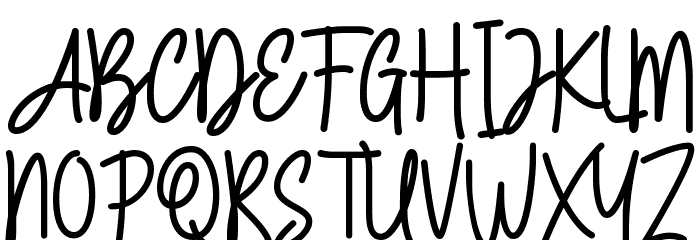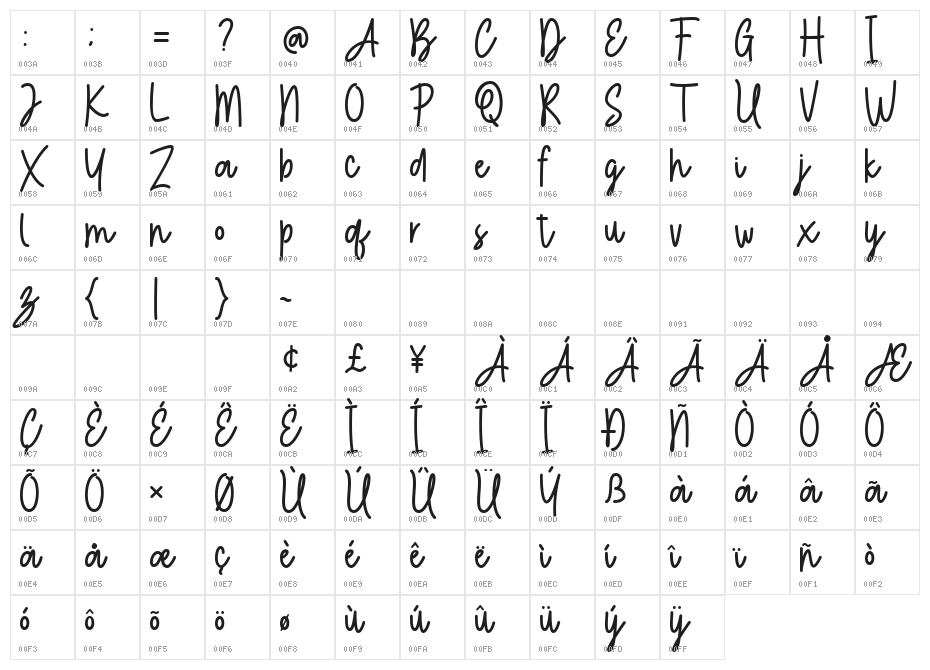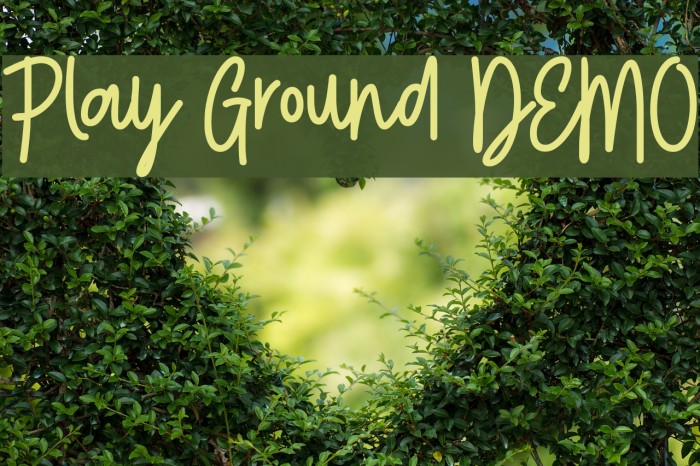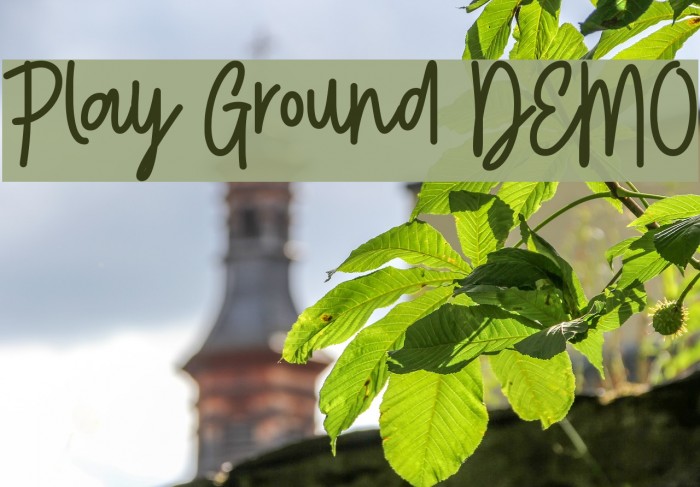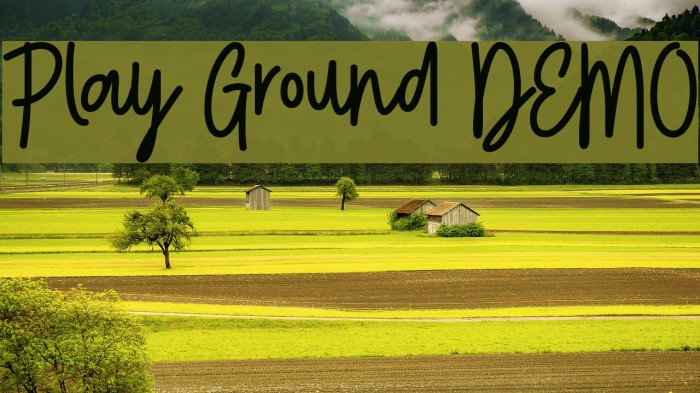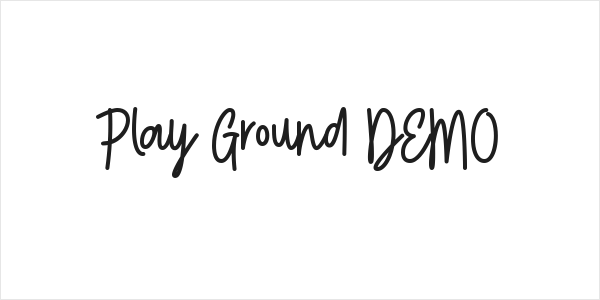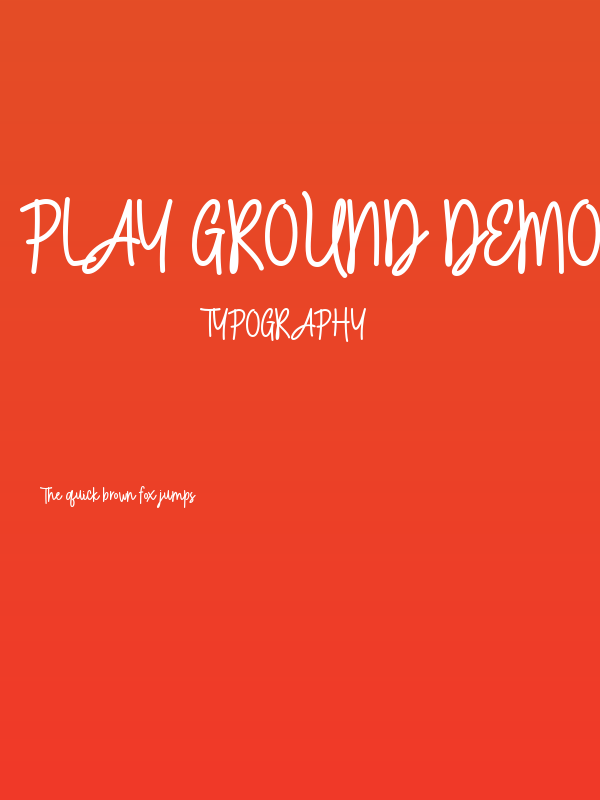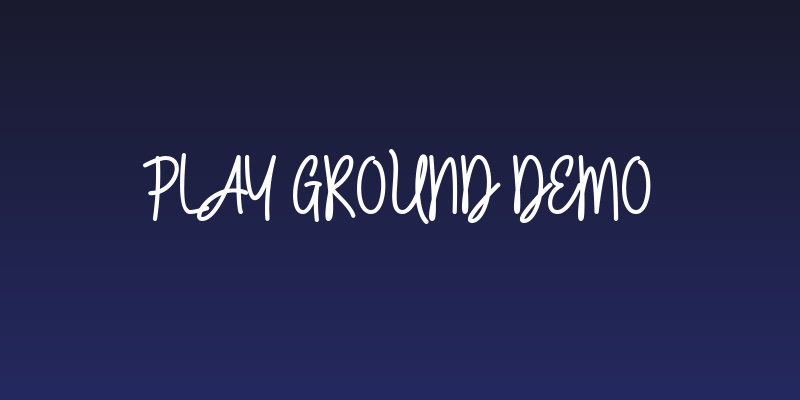
Play Ground DEMO Font
Play Ground DEMO Description
This font features a playful and energetic handwritten style, characterized by its flowing and connected letterforms. The uppercase and lowercase letters maintain a consistent rhythm, with a slight slant that adds to its casual and informal appearance. The strokes are bold and confident, with rounded edges that soften the overall look. The font includes a full set of uppercase and lowercase letters, numbers, and a selection of special characters, making it versatile for various design needs. Its lively and dynamic nature makes it suitable for projects that require a personal touch.
| Use Case | Logos, Headlines, Informal Invitations |
| Proposed Projects | Ideal for greeting cards, social media graphics, children's book covers, and playful branding. |